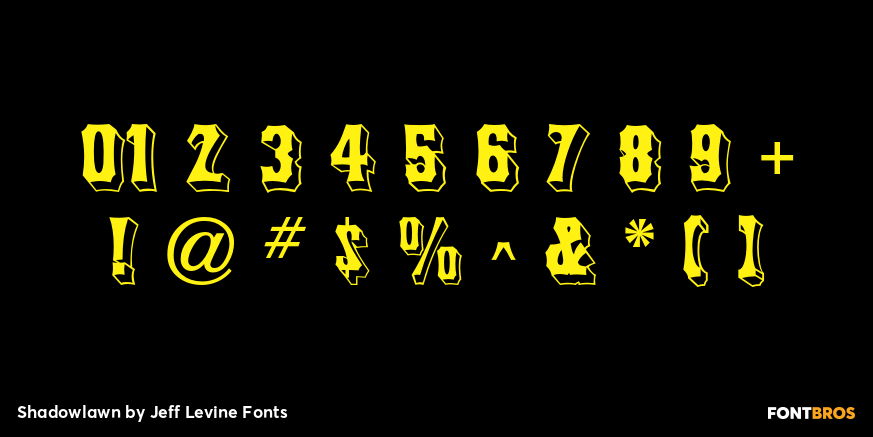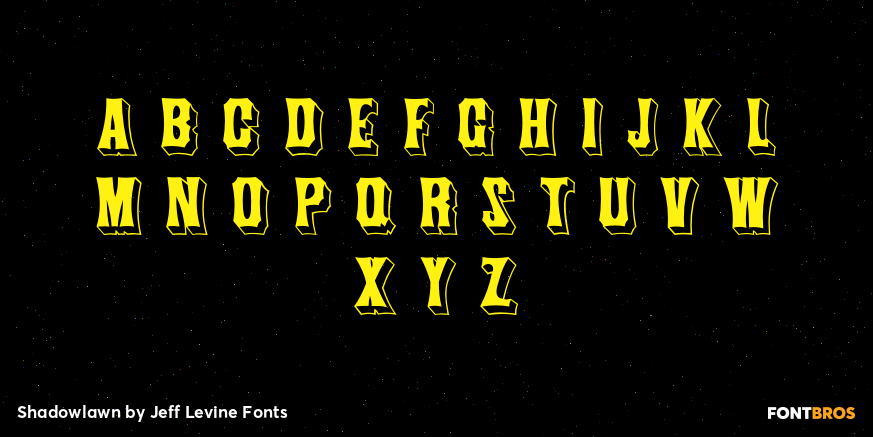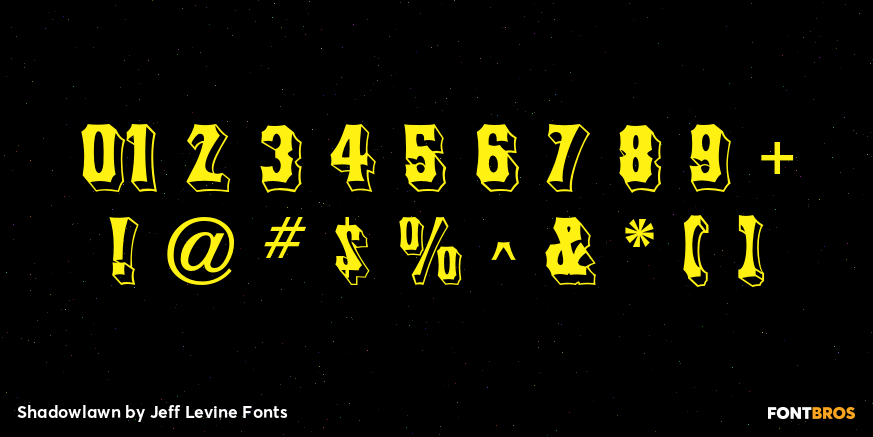
Shadowlawn
If you like a rough-hewn, rugged and vintage typeface, then Shadowlawn JNL will certainly please you. Re-drawn from vintage examples of a hand-cut wood type, the rustic charm of this typeface brings a reminiscence of Old West themes.